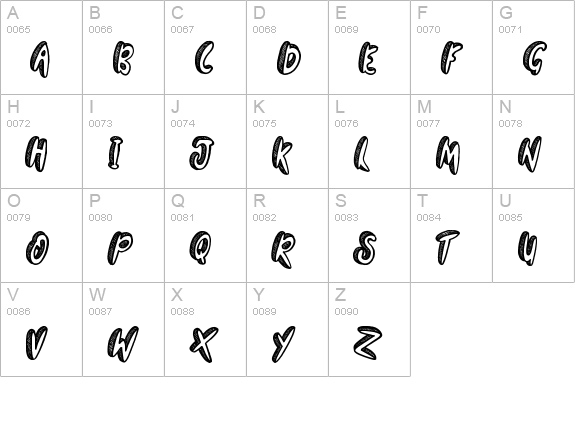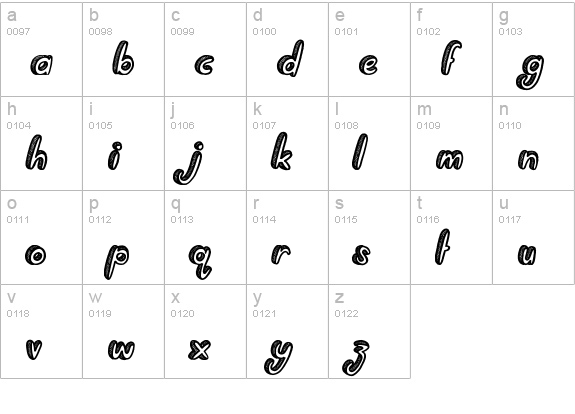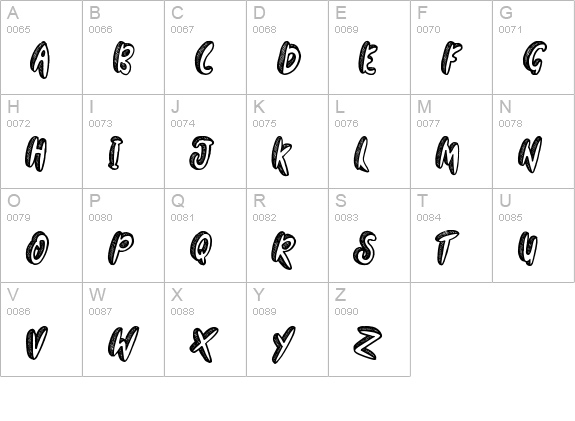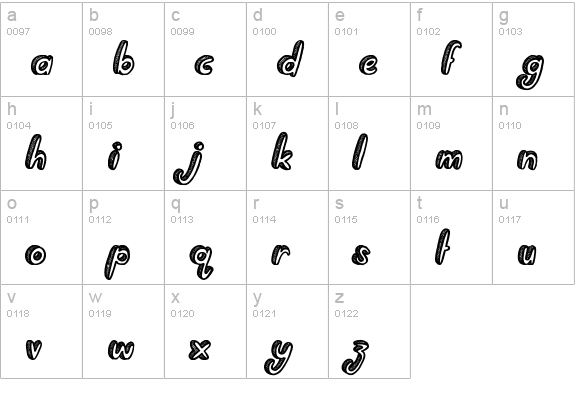
Going Rogue Font Details
Introducing Going Rogue, a truly rebellious font that breaks free from the conventions of traditional typography! With its edgy and bold letterforms, this font is perfect for those who dare to stand out and go against the grain. Going Rogue is not just an ordinary font; it is an embodiment of artistic freedom and individual expression. Its unique design captures the essence of a daring spirit that refuses to be confined by norms and restrictions. Each letter is meticulously crafted to create a sense of movement and dynamism, adding an energetic touch to any design. But what truly sets Going Rogue apart is that it is freely available to download at FontsMarket.com. Yes, you heard it right - this extraordinary font can be yours without any cost. Whether you are a professional designer looking to add an unconventional touch to your projects or a creative enthusiast seeking to make a statement, Going Rogue is the perfect choice. With its versatility, Going Rogue is suitable for a wide range of design applications. From eye-catching headlines to attention-grabbing posters, this font will ensure that your message stands out from the crowd. Its bold and confident presence on screen or in print will captivate your audience and leave a lasting impression. So why conform when you can rebel? Embrace your inner renegade and let Going Rogue be your creative weapon of choice. Download this exceptional font for free from FontsMarket.com and unleash your imagination. It's time to break free from the ordinary and make a statement that will be remembered.